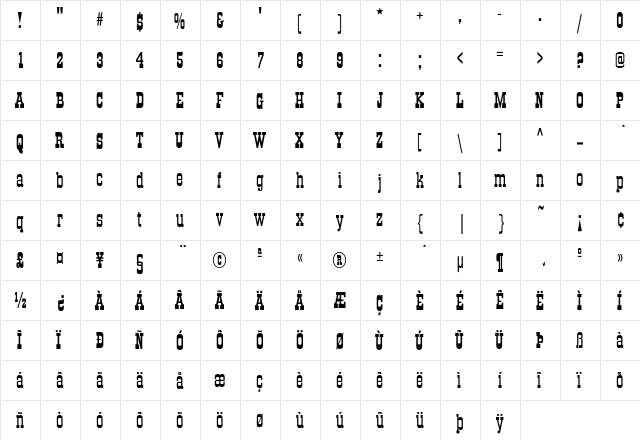
OldTown-Normal Regular Font Preview
OldTown-Normal Regular
Design Context for OldTown-Normal Typeface
OldTown-Normal is a composed and adaptable typeface that performs quietly and consistently across a wide range of design contexts.
Pro Tip: Use OldTown-Normal in both headline and body roles to test its range before committing to a single application.